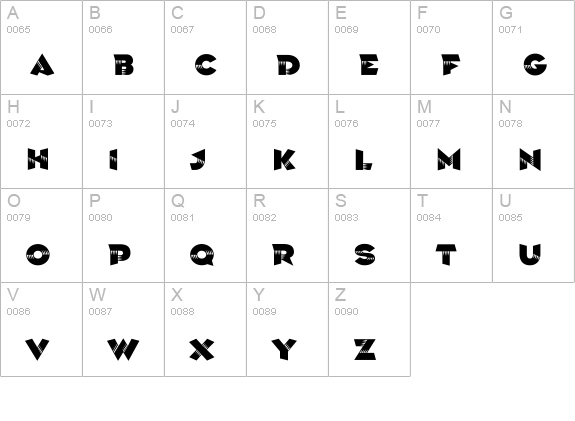
Griffin-DynamoCapitals font is a versatile and stylish typeface that combines the classic elegance of Griffin with the modern flair of Dynamo. This unique font features bold and dynamic capital letters that make a strong statement in any design project. Whether you're creating a poster, logo, or branding materials, Griffin-DynamoCapitals font will give your work a powerful and sophisticated look. The best part is that Griffin-DynamoCapitals font is available for free download at FontsMarket.com. You can easily access this stunning font and use it in your personal or commercial projects without any restrictions. Don't miss out on the opportunity to add this impressive typeface to your font collection today!